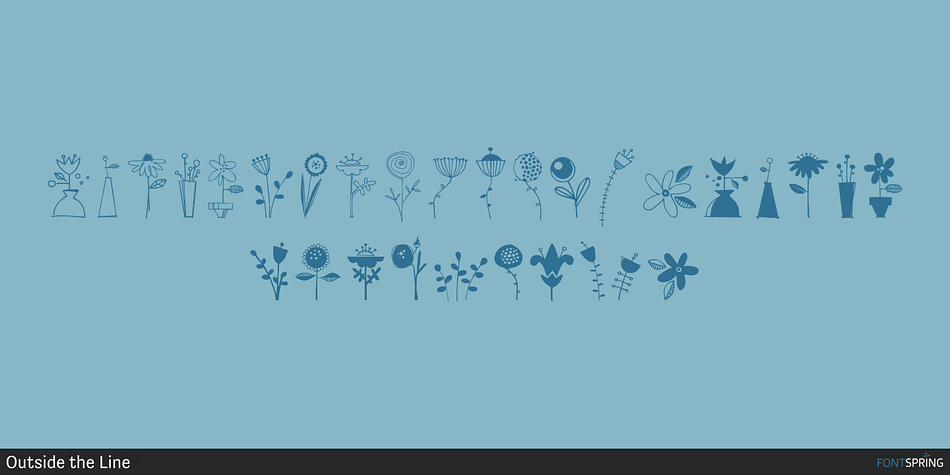
Flower Doodles Regular
Flower Doodles is a dingbat font published by Outside the Line.
Flower Doodles...
Flower Doodles… 15 line drawings, 15 reverse drawings… this font is drawn so that you can use a line drawing and its corresponding reverse together or use all the line drawings together or all the reverse ones together.
Lots of looks with these 30 flowers.